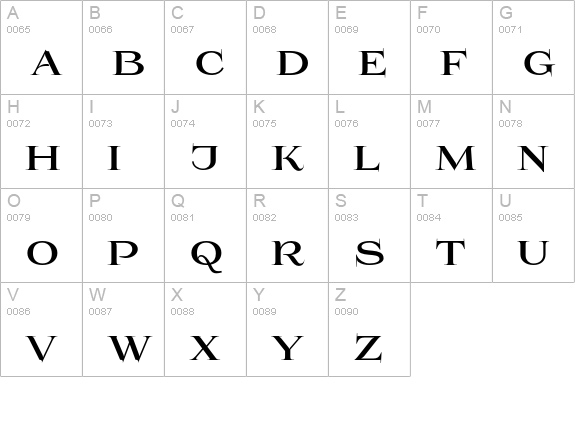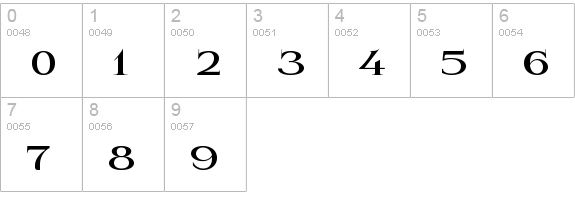
Prida01Black Font Details
Introducing Prida01Black, a captivating and bold typeface that exudes elegance and sophistication. With its sleek lines and strong letterforms, this font is perfect for creating eye-catching headlines, striking logos, and impactful designs. Prida01Black stands out from the crowd with its unique blend of modernity and timeless appeal. Its generous x-height and wide character set make it versatile for a wide range of design projects, from branding and packaging to editorial layouts and web design. This font commands attention with its commanding presence, making it an excellent choice for display purposes. Whether you're designing a poster, a magazine cover, or a website banner, Prida01Black will make your message stand out and leave a lasting impression. What's even better is that Prida01Black is available for free download at FontsMarket.com. This means that you can access this incredible font without any cost, making it an excellent resource for both professional designers and enthusiasts alike. Don't miss out on the opportunity to enhance your creative projects with the striking and versatile Prida01Black font. Download it today from FontsMarket.com and let your designs shine with its bold and captivating presence.